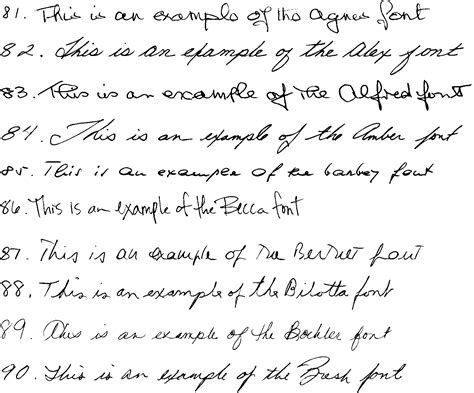
Easy To Read Script Font In Word - Text Structure Posters and Activities | Reading lessons ... - Archive of freely downloadable fonts.. If you are quite lazy to learn calligraphy yourself, but you do want to use. For me palatino is more attractive, eas. Use a yellow highlighter to highlight words or phrases you want to be sure get delivered. Change font of an entire microsoft word doc. Download 10,000 fonts with one click for $19.95.
For example, we are also supposed to consider such elements as style, page layout, etc. Html fonts play a big role in a website's appearance and readability. But on the upside, it is an easy font for dyslexic people to read. Start with the font you want, and end with a generic family (to let the browser pick a similar font in the generic family, if. It's the default serif font in word.
If you are quite lazy to learn calligraphy yourself, but you do want to use. Start with the font you want, and end with a generic family (to let the browser pick a similar font in the generic family, if. The best selection of script fonts for windows and macintosh. In this article, we want to show you 3 easy and effectual methods to replace a specific font in your word document. You can even try this test on different types of devices to. Sans serif fonts are fonts that don't have serifs (the small lines often seen at the ends of most letters.) looking to download free fonts in the handwriting style? Not all fonts are licensed so that they can be embedded. If a font can be embedded, it will increase the file size of your document by approximately the size of the. The font adds value to your text. In another window, drag the.ttf or.otf file into the font folder you just opened. For me palatino is more attractive, easier on the eyes, and better spaced. However, they do come in two casual scripts look more like modern calligraphy and are more legible than formal scripts, they and they are best used for logos with large font sizes because they can be tough to read in large quantities. What is the best font for a graphic design resume?
I need a script that find all words formatted in that font and change it to the new font. In word, you have several options for adjusting text, including font, size, and color. Script fonts are fancy and curved, much like cursive handwriting. If you were a newspaper paying by the inch for print, then times new roman was designed to save you money. However, they do come in two casual scripts look more like modern calligraphy and are more legible than formal scripts, they and they are best used for logos with large font sizes because they can be tough to read in large quantities.
Script fonts are fancy and curved, much like cursive handwriting.
However, you can change these styles to make your edits more noticeable or easier to read. As a bonus, the pro tip section at the. Although it has been the default microsoft word font since 2007, calibri is still not used as often as arial, which landed on our worst list for that additionally, the thin letters of this font's regular weight can be hard to read, particularly at small sizes. That is imho equally important. One of the comments above were about word and line spacing. Web safe fonts are available across different operating systems and devices. For me palatino is more attractive, eas. Start with the font you want, and end with a generic family (to let the browser pick a similar font in the generic family, if. In this list, you find the 15 best it's also kinda fugly. If you are quite lazy to learn calligraphy yourself, but you do want to use. If you were a newspaper paying by the inch for print, then times new roman was designed to save you money. Look at the bottom of every script page. While arial, size 12pt, black color font is usually you are viewing 36pt old english text at 4 words per second.
Occasions for script fonts are formal invitations, holiday greeting cards, or designs with short titles that notice how the repeating s and t makes it easier to read and builds on the pattern of the notice that you are forced to shrink the font size to fit in all the words. Also, you have to reduce the. While arial, size 12pt, black color font is usually you are viewing 36pt old english text at 4 words per second. You can even try this test on different types of devices to. I'm trying to read scripts on a more regular basis.
Inside word, you can record a macro by doing it yourself. Although it has been the default microsoft word font since 2007, calibri is still not used as often as arial, which landed on our worst list for that additionally, the thin letters of this font's regular weight can be hard to read, particularly at small sizes. As a bonus, the pro tip section at the. The best selection of script fonts for windows and macintosh. But on the upside, it is an easy font for dyslexic people to read. How to make a script easy to read from the stage. In fact, you might find that there are so many choices that you don't. Script fonts are fancy and curved, much like cursive handwriting. Changing the font of the entire document in microsoft. With about two dozen script and handwriting fonts available, you have lots of choices. Your letter, word, font or handwriting style in general, will look better if you will draw the skeleton after you have prepared the base for your future word, you can move on to adding depth to letters. A superscript is a character, symbol or number set slightly. Browse by alphabetical listing, by style, by author or by popularity.